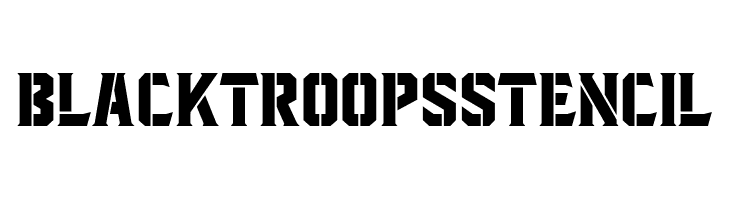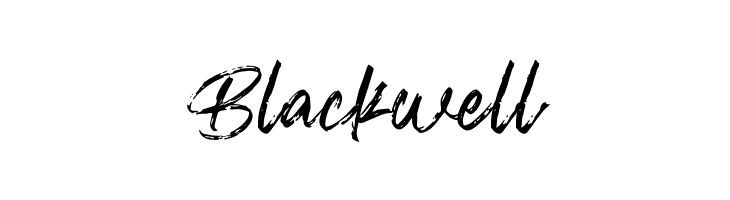
A bold, geometric stencil font with a military-industrial aesthetic.
A bold, brush-like font with dynamic, angular strokes and a slanted orientation.
A dynamic, brush-style font with fluid, cursive strokes.
A bold, playful font with a hand-drawn, cartoonish style.
A decorative blackletter font with ornate, angular strokes and historical elegance.
A bold and ornate blackletter font with intricate, medieval-inspired designs.
A dynamic brush-style font with bold, expressive strokes.
A bold, expressive handwritten font with playful splatter embellishments.
A bold, expressive handwritten font with dynamic strokes and a textured appearance.
A bold, expressive handwritten font with dynamic strokes and a raw texture.